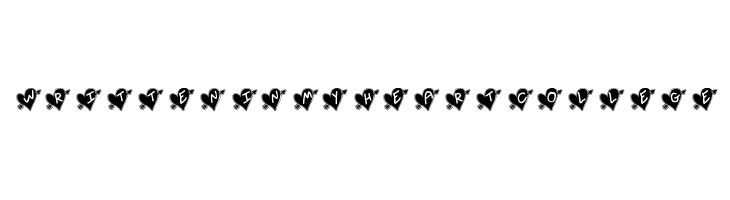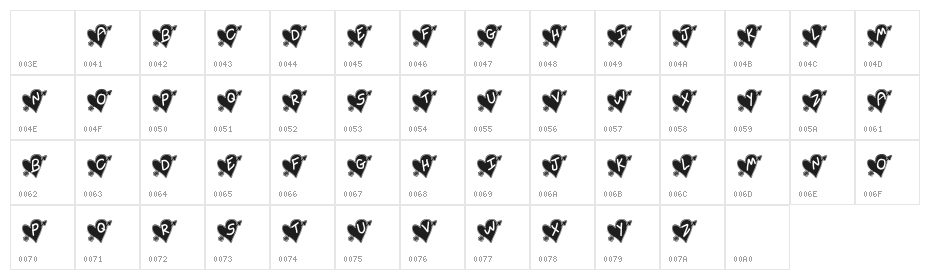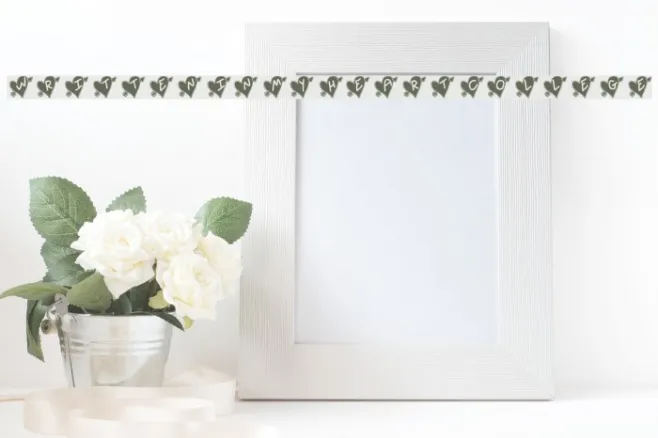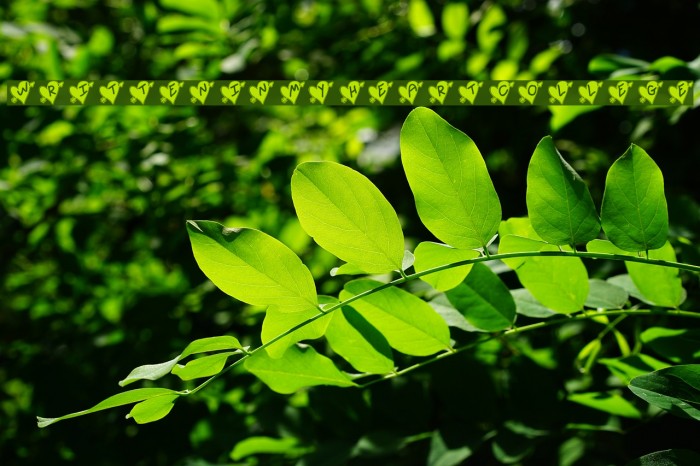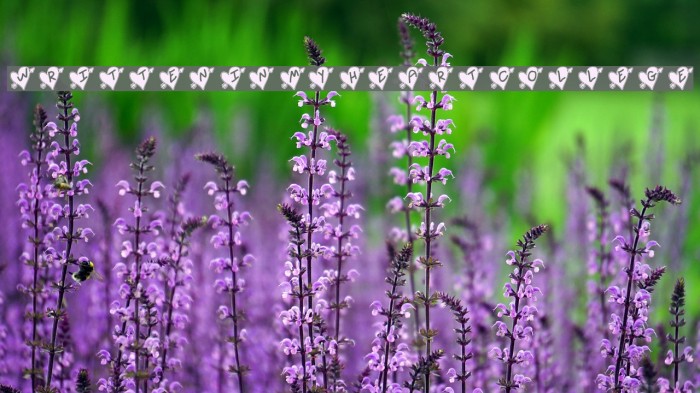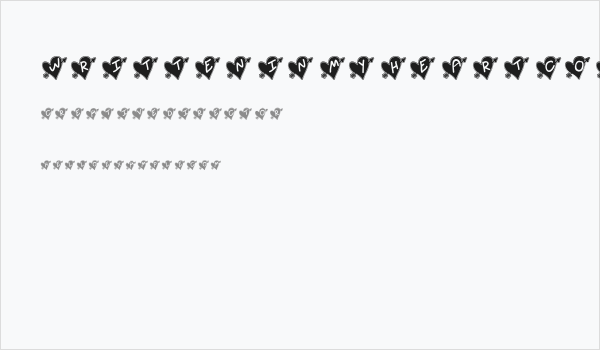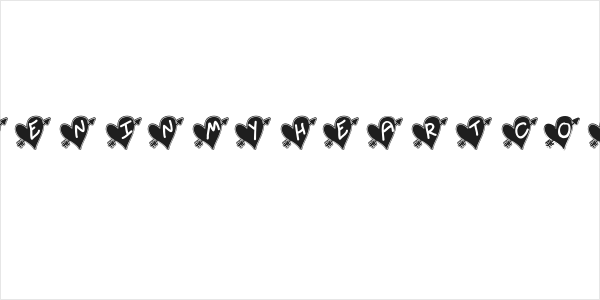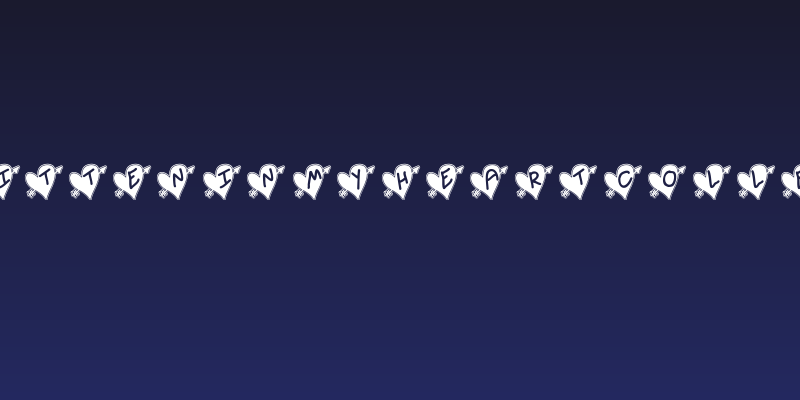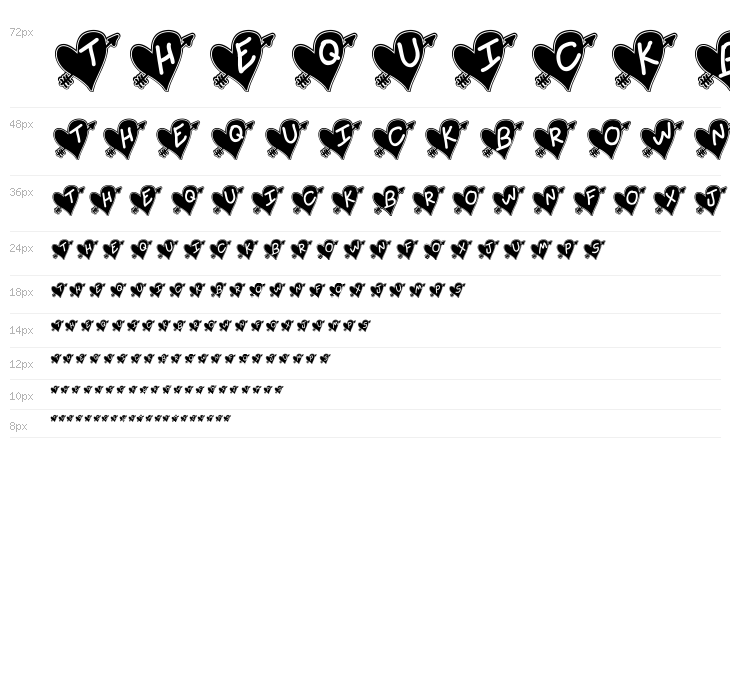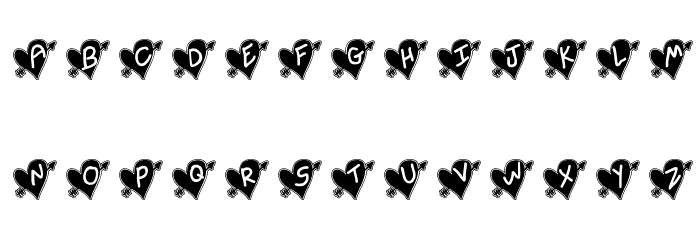
Written In My Heart College Font
Written In My Heart College Description
This playful and decorative font features each character enclosed within a heart shape, adding a whimsical and romantic touch. The letters are bold and white, contrasting sharply against the black heart background. Each heart is pierced by an arrow, enhancing the love-themed design. The font is highly stylized, making it ideal for projects that require a fun and unique aesthetic. The consistent use of hearts and arrows throughout the alphabet creates a cohesive and charming appearance.
| Proposed Projects | Ideal for Valentine's Day cards, wedding invitations, romantic-themed posters, and playful branding materials. |